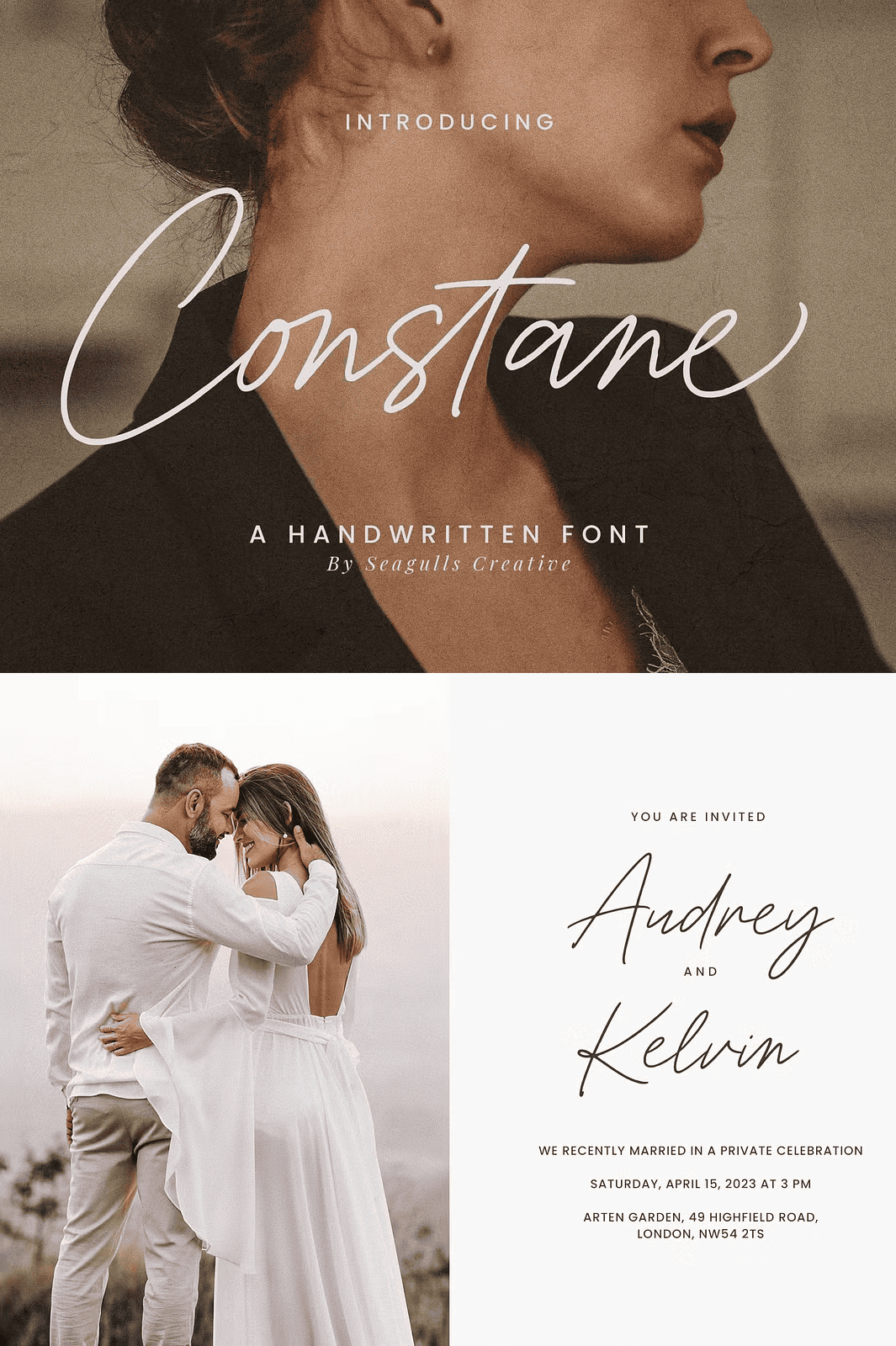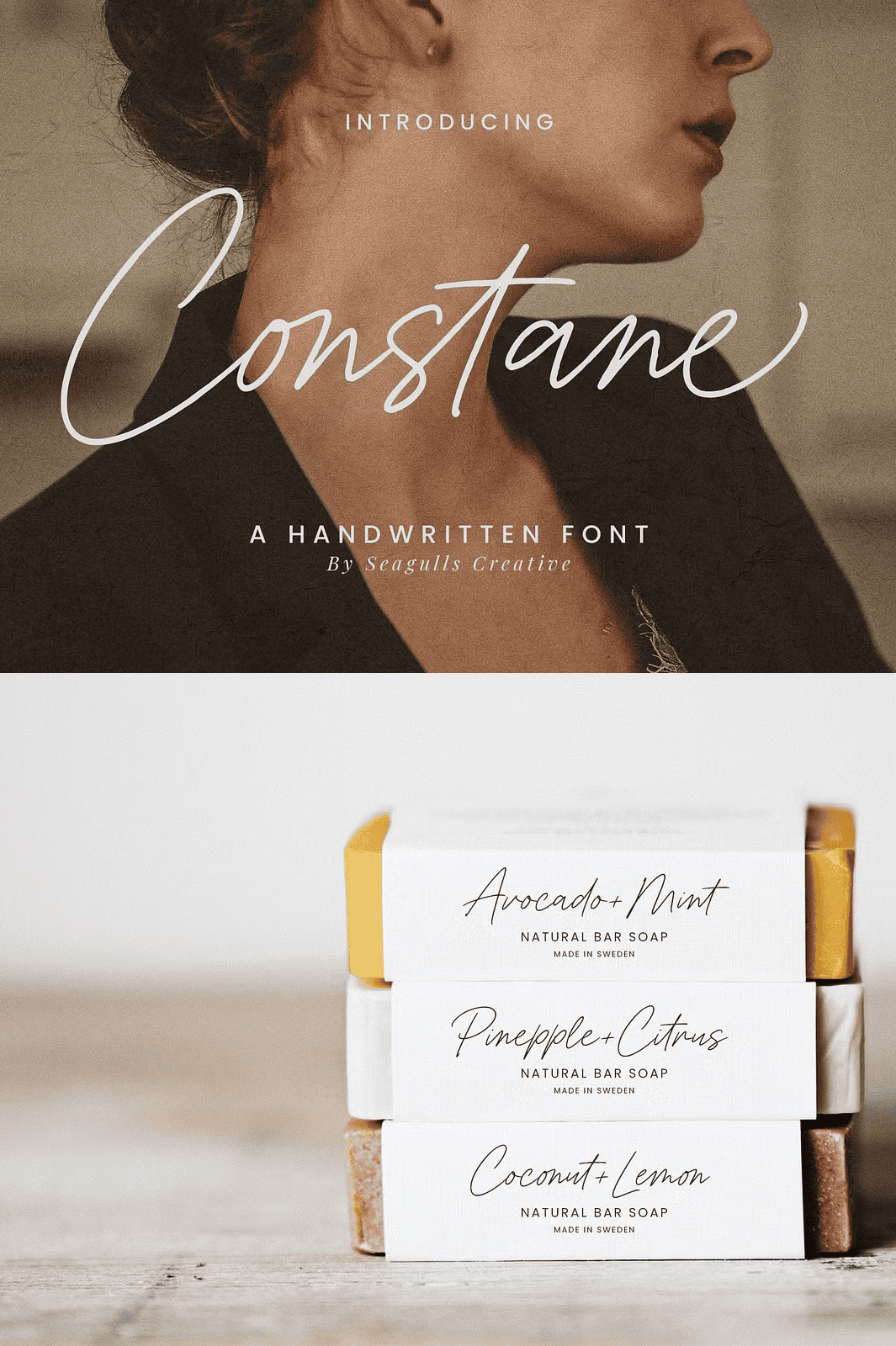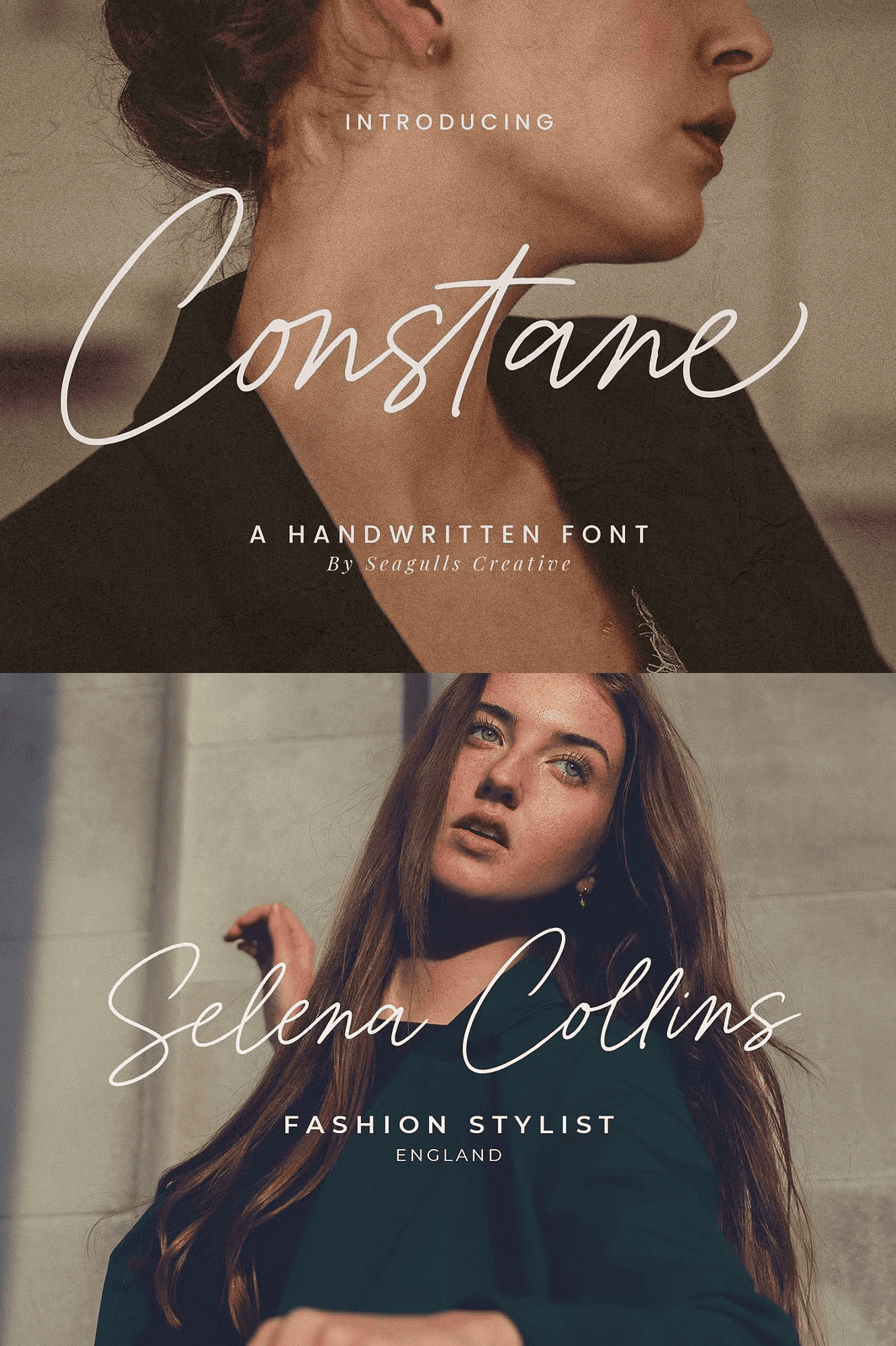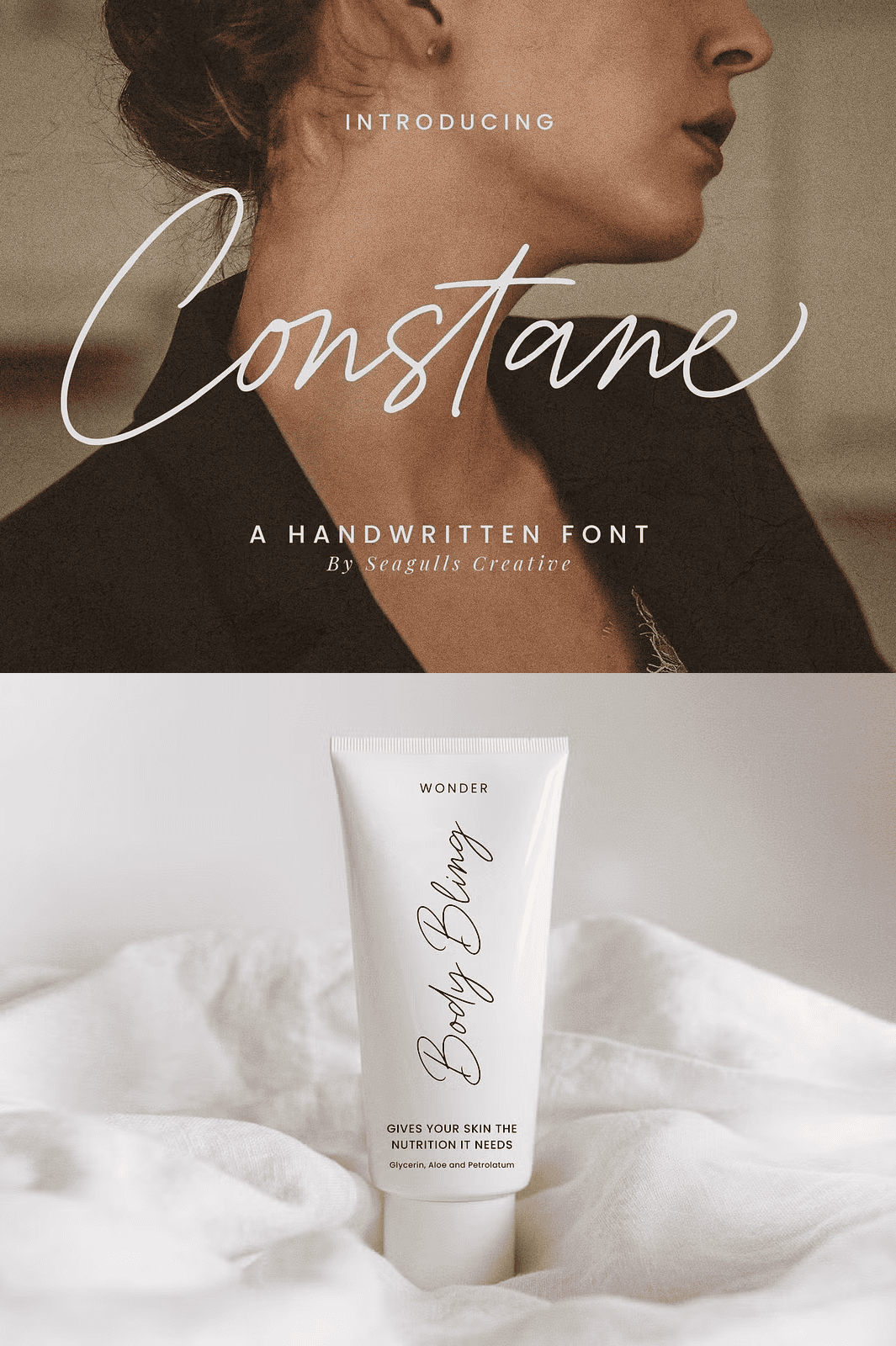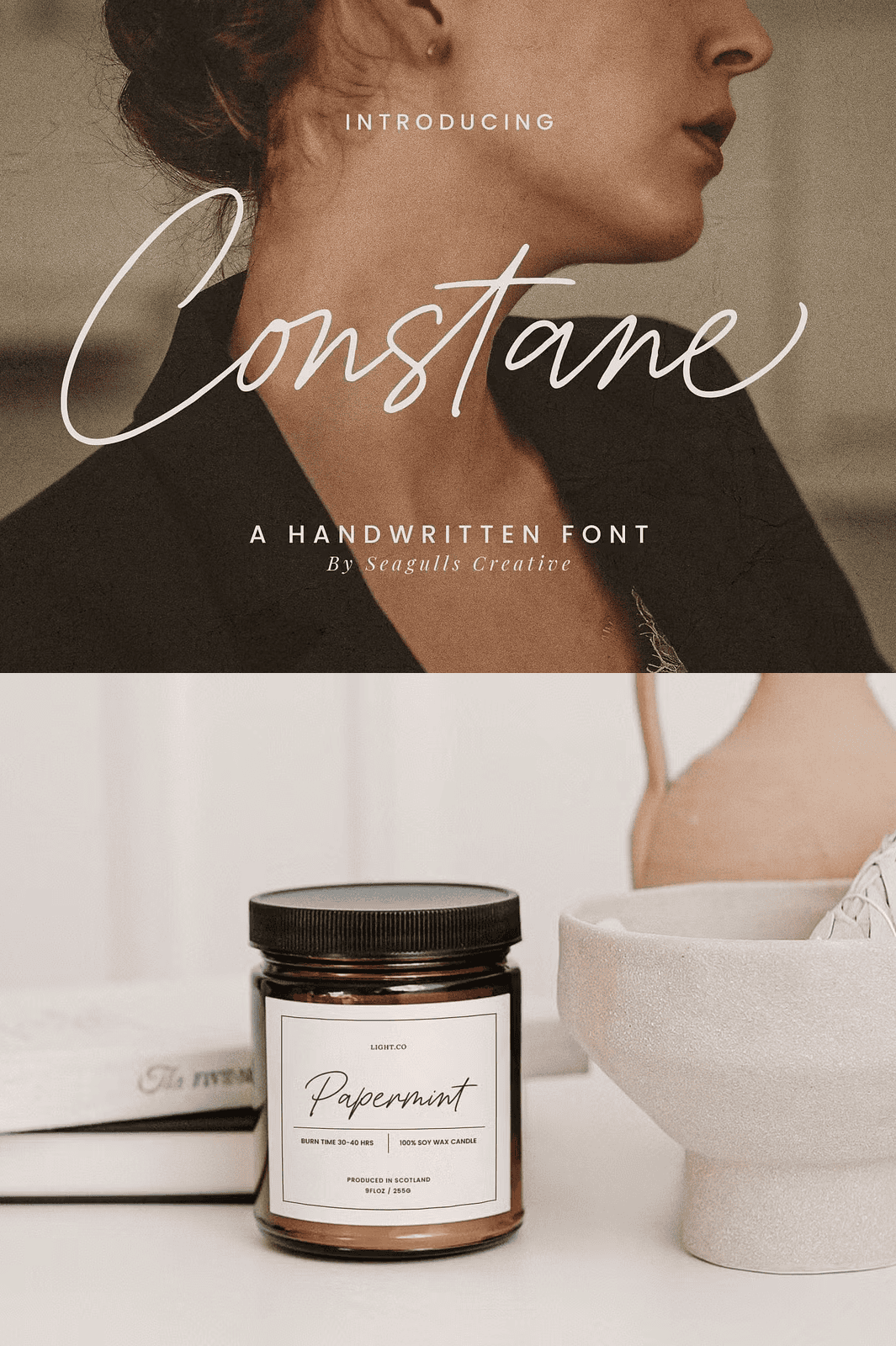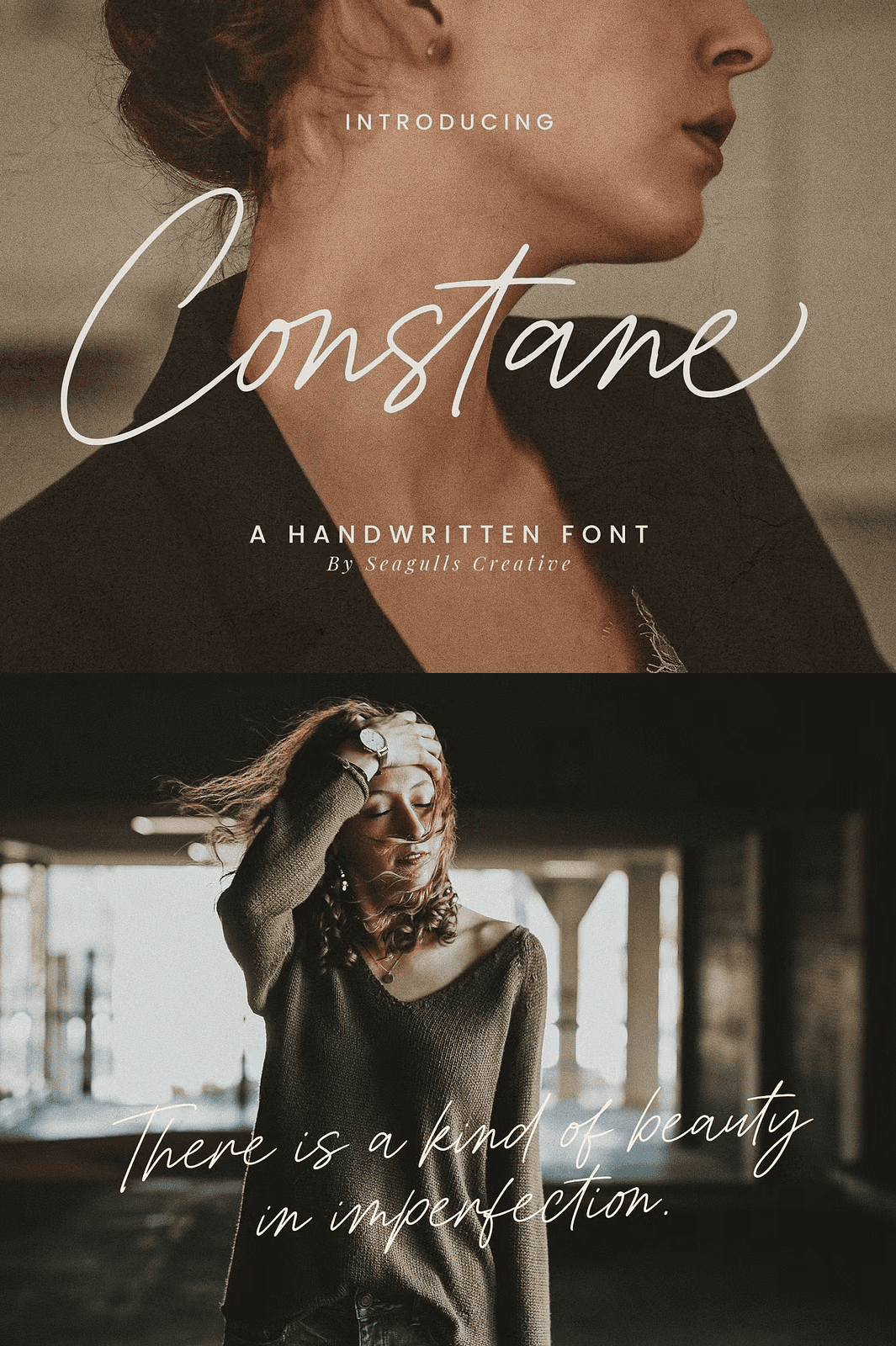
Constane Handwritten Font
Elevate Your Brand with a Font That Speaks Fluent Elegance
Introducing **Constane**, a stunning modern handwritten font engineered to inspire and captivate. If you’re searching for a typographic solution that blends artistry with functionality, Constane delivers unmatched versatility and expressive power. Designed for professionals and creatives who demand excellence, this font is your key to transforming ordinary designs into memorable visual experiences.
Whether you’re building a luxury brand identity, crafting wedding invitations that linger in memory, or designing social media content that stops the scroll, Constane brings every word to life with organic flow and refined style. Its bold yet graceful strokes command attention, setting your work apart in a saturated digital landscape.
Experience a Complete Typeface with Dynamic Alternates and Seamless Integration
Constane isn’t just a font—it’s a complete creative toolkit. It includes:
– Full uppercase and lowercase letter sets with natural stroke variation
– Comprehensive numbers, punctuation marks, and special symbols
– A rich selection of stylistic alternates for custom, unique expressions
– Elegant ligatures that connect letters with fluid precision, echoing the movement of real handwriting
Every character is meticulously crafted to ensure visual harmony and authenticity, making your text feel intentionally composed, not randomly generated.
Support Across Languages and Platforms for Global Creativity
Constane goes beyond the basics with **multi-language support**, including Western European, Central European, and South Eastern European languages. This means you can confidently create content for international audiences without sacrificing typographic integrity.
Use it for web typography, app interfaces, branding guides, product packaging, or any platform where elegance and performance matter.
From concept to completion, Constane amplifies the impact of your projects:
– **Branding & Logos**: Build memorable brand identities with handwritten warmth and modern flair.
– **Wedding Invitations & Stationery**: Craft elegant suites for Save-The-Dates, programs, menus, and thank-you cards that evoke emotion.
– **Social Media & Advertising**: Grab attention with posts, banners, and promotional graphics that feel personal and authentic.
– **Product Packaging & Labels**: Add a touch of artisanal craftsmanship to your designs, elevating perceived value.
– **Photography and Editorial Layouts**: Use as headline text or overlay for visual storytelling that resonates.
No matter the format, Constane adapts, evolves, and enhances your vision—turning ideas into compelling realities.
Why Constane Outperforms Generic Handwritten Fonts
Unlike standard script fonts that feel repetitive or flat, Constane is built for expression. Its varied alternates prevent visual monotony, while its clean, readable design ensures legibility even at smaller sizes. Whether you’re working with a full banner or a tiny logo, Constane maintains clarity and character.
With over 90 stylistic sets and contextual alternates, you can fine-tune each piece to match your tone—romantic, playful, bold, or minimalist—without altering the core font.